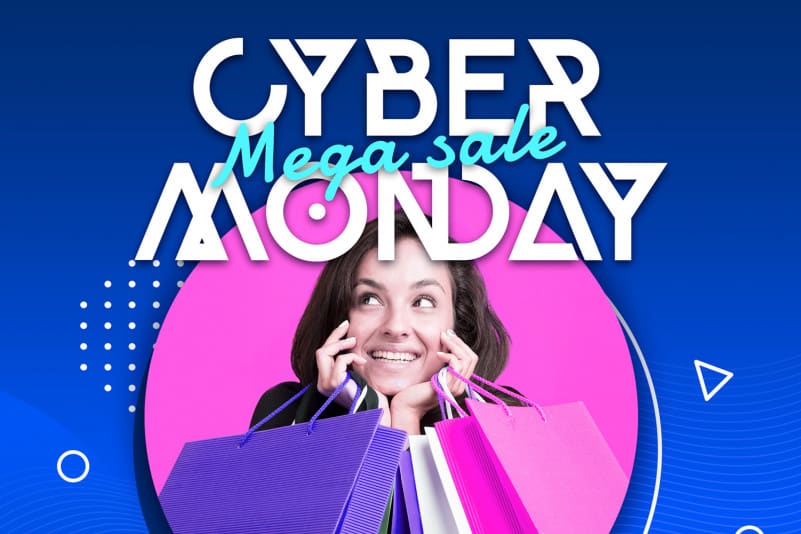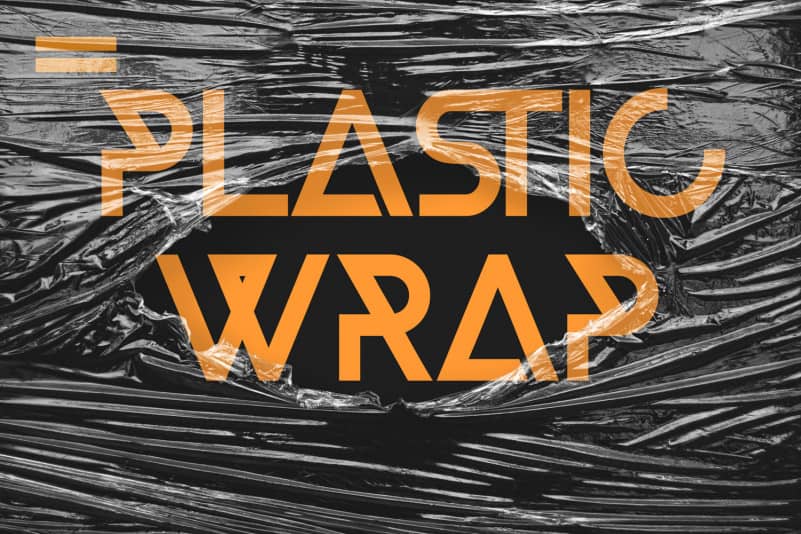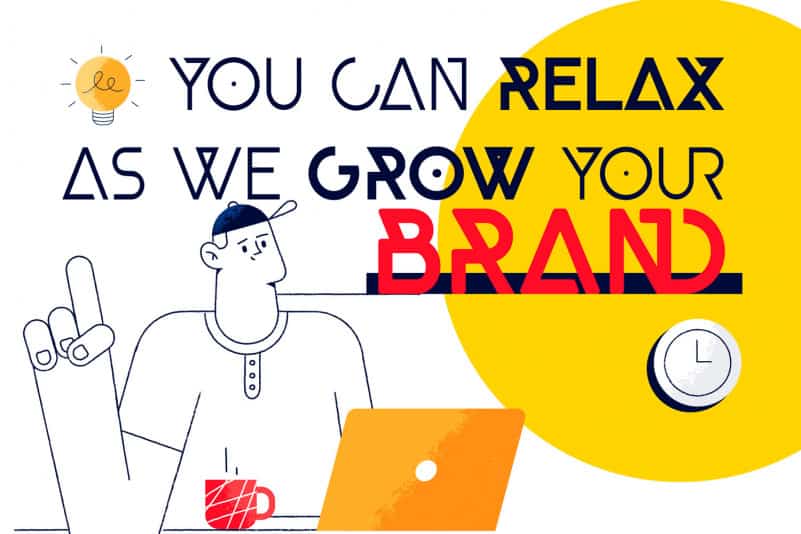
Roblox – Geometric Sans Font
Roblox Font Is A Geometric Sans Typeface Inspired By Strong And Powerful Character. Bold And Sharp With Smooth Textures. Roblox is simple but significant, and defined by its crisp edges and modern touches. It is designed for optimal legibility. An all caps sans-serif. Suitable With Your Business And Modern Company.
Roblox – Geometric Sans Font works great in branding, logos, headlines, high fashion. The different weights give you full range to explore a whole host of applications, from tech startup, local events to sports matches.